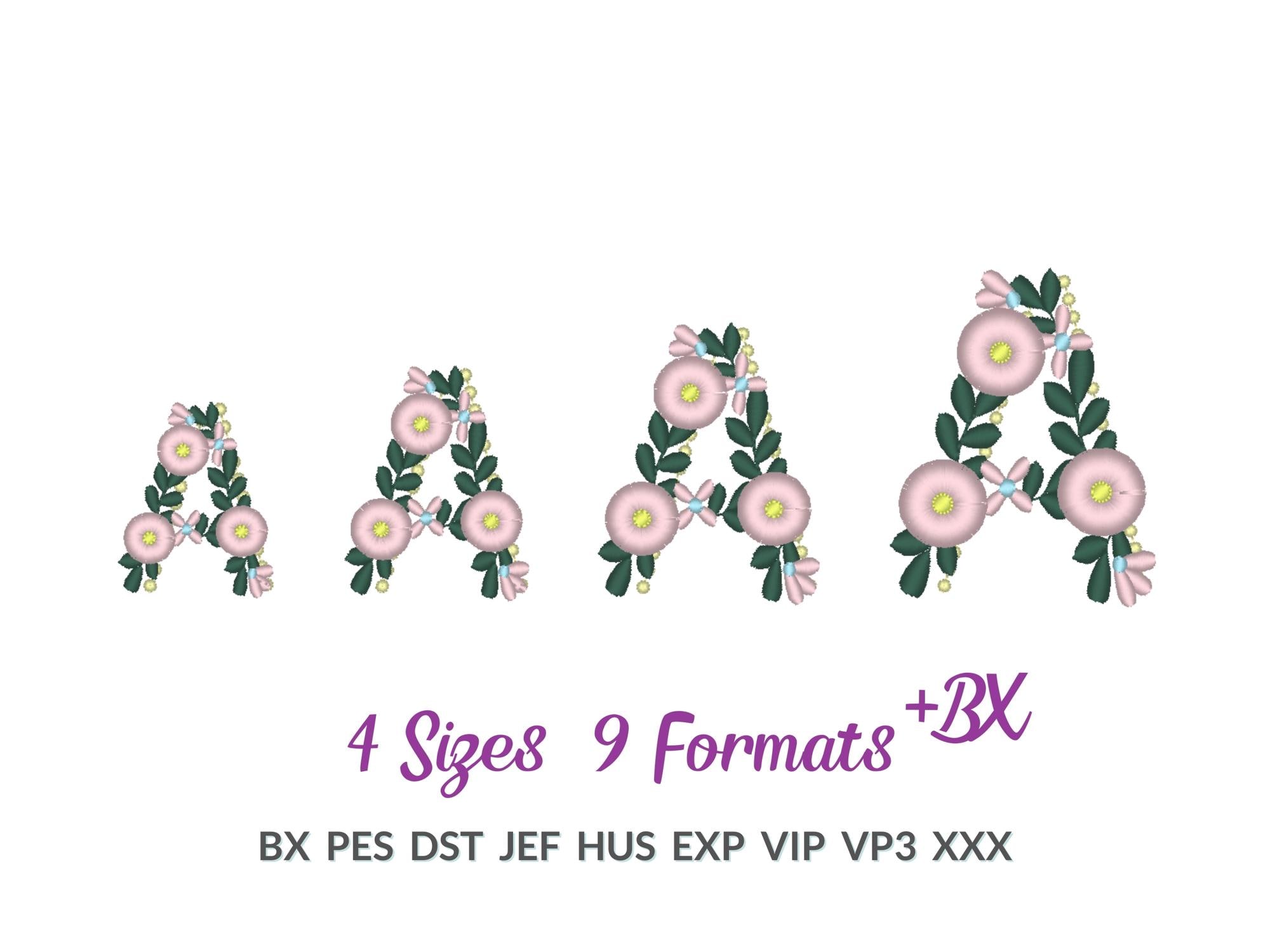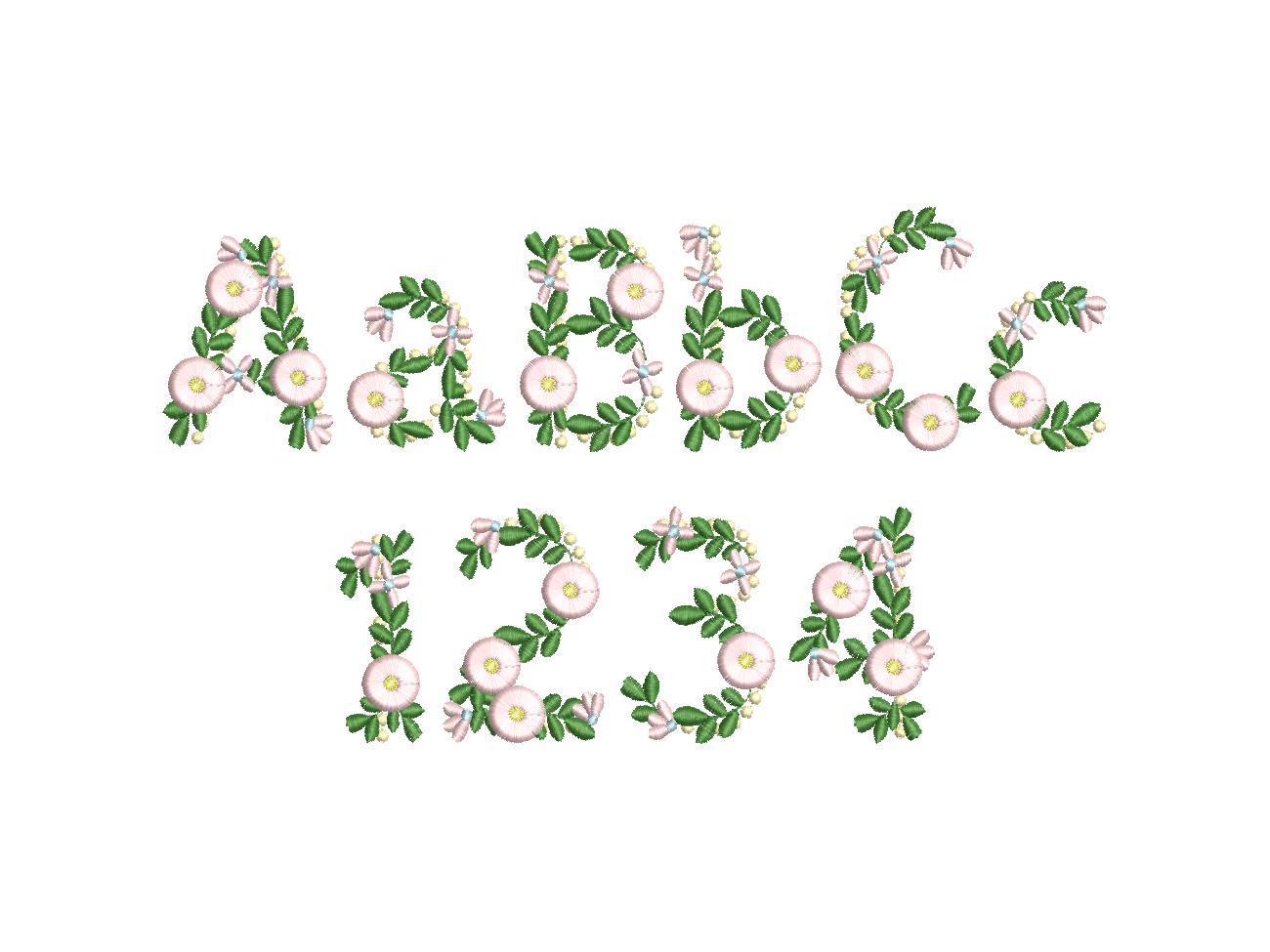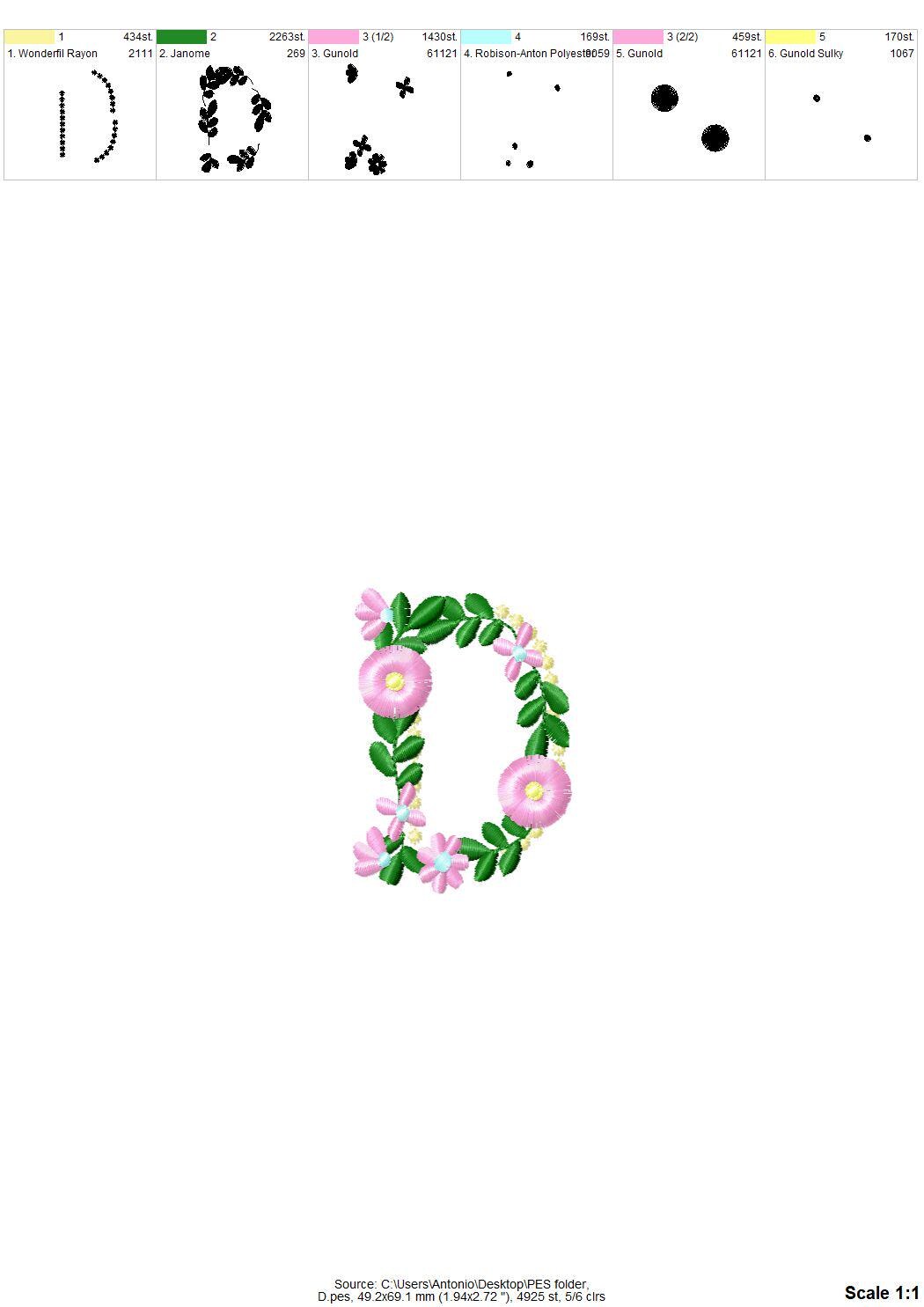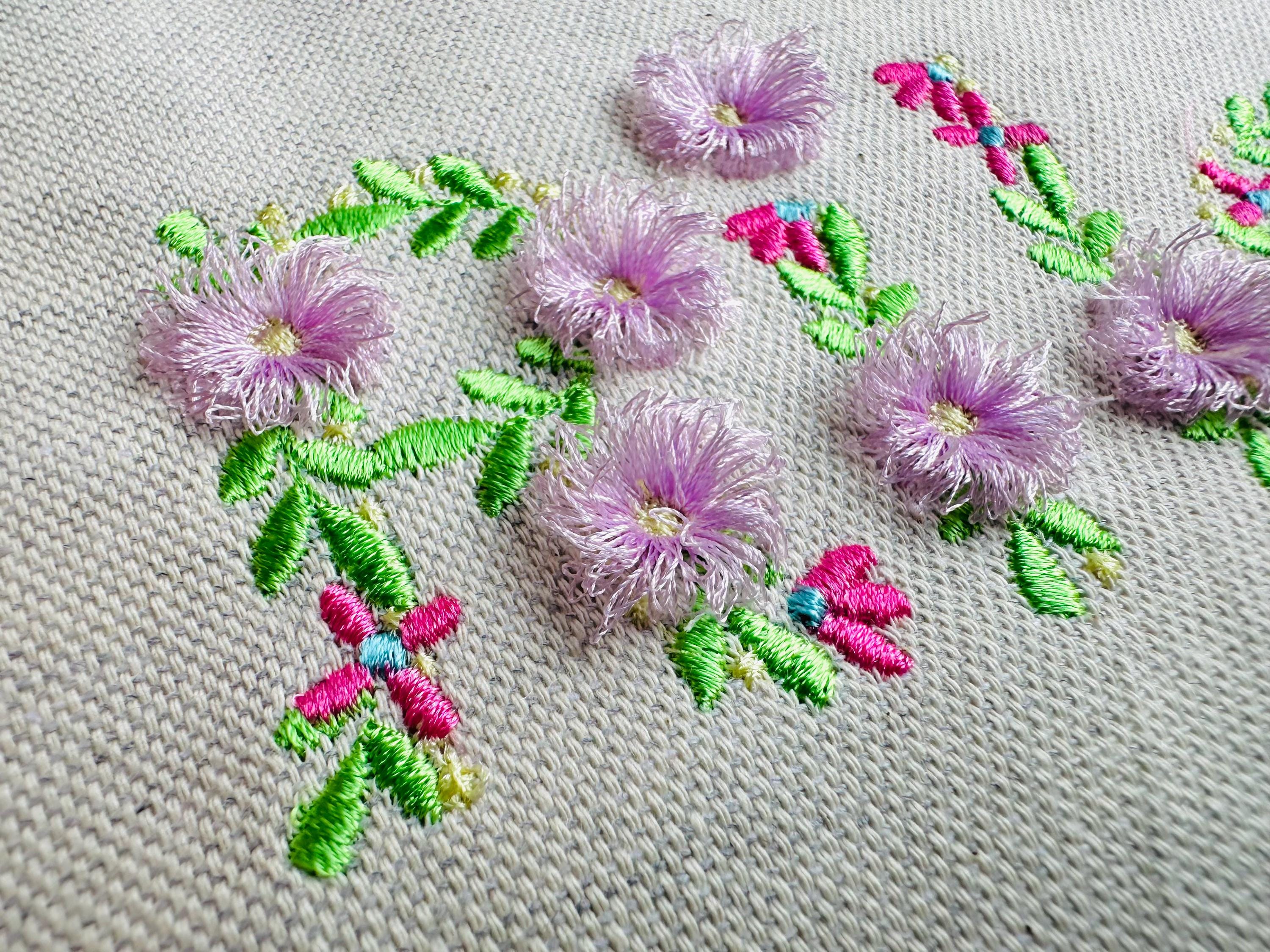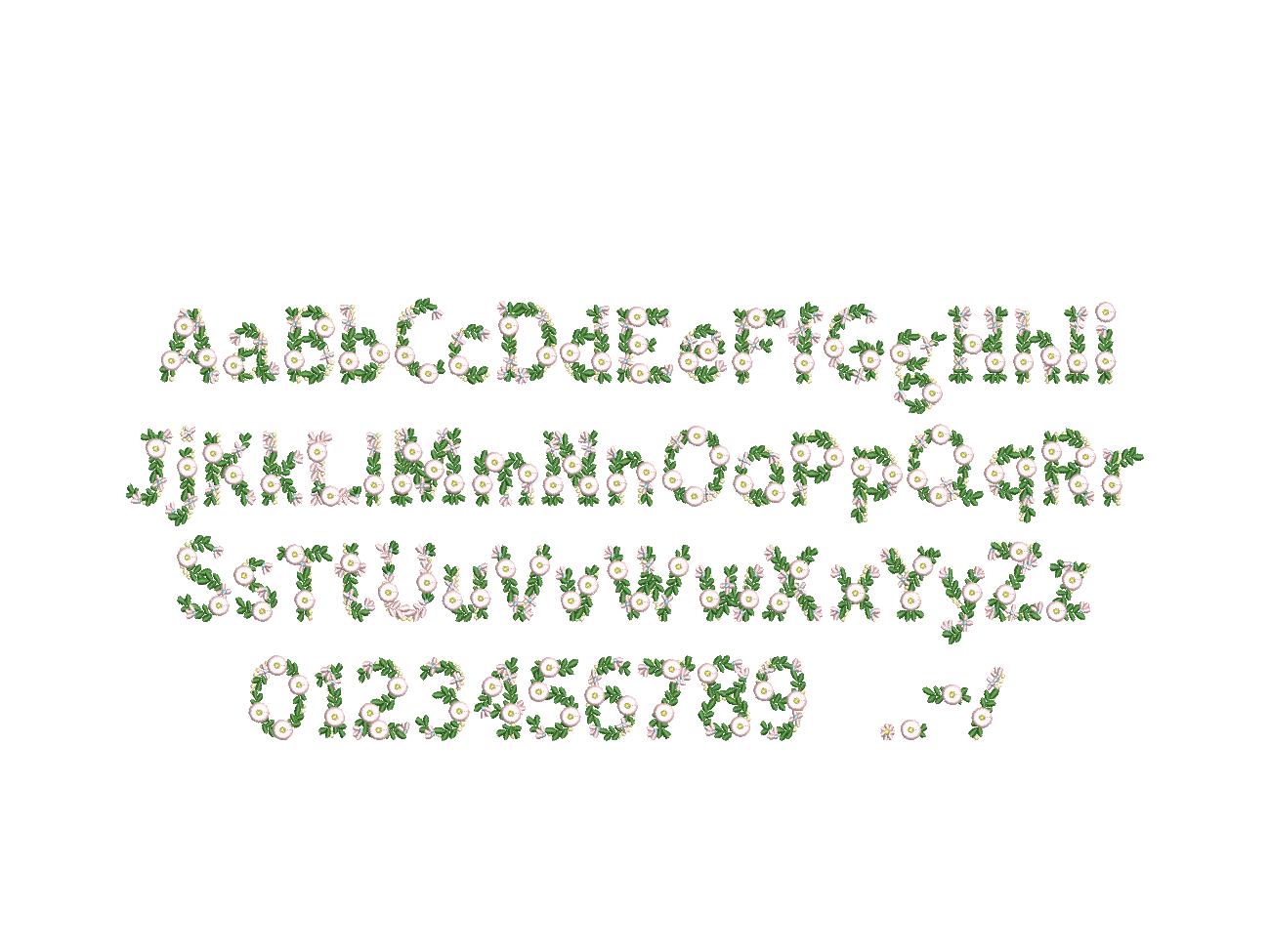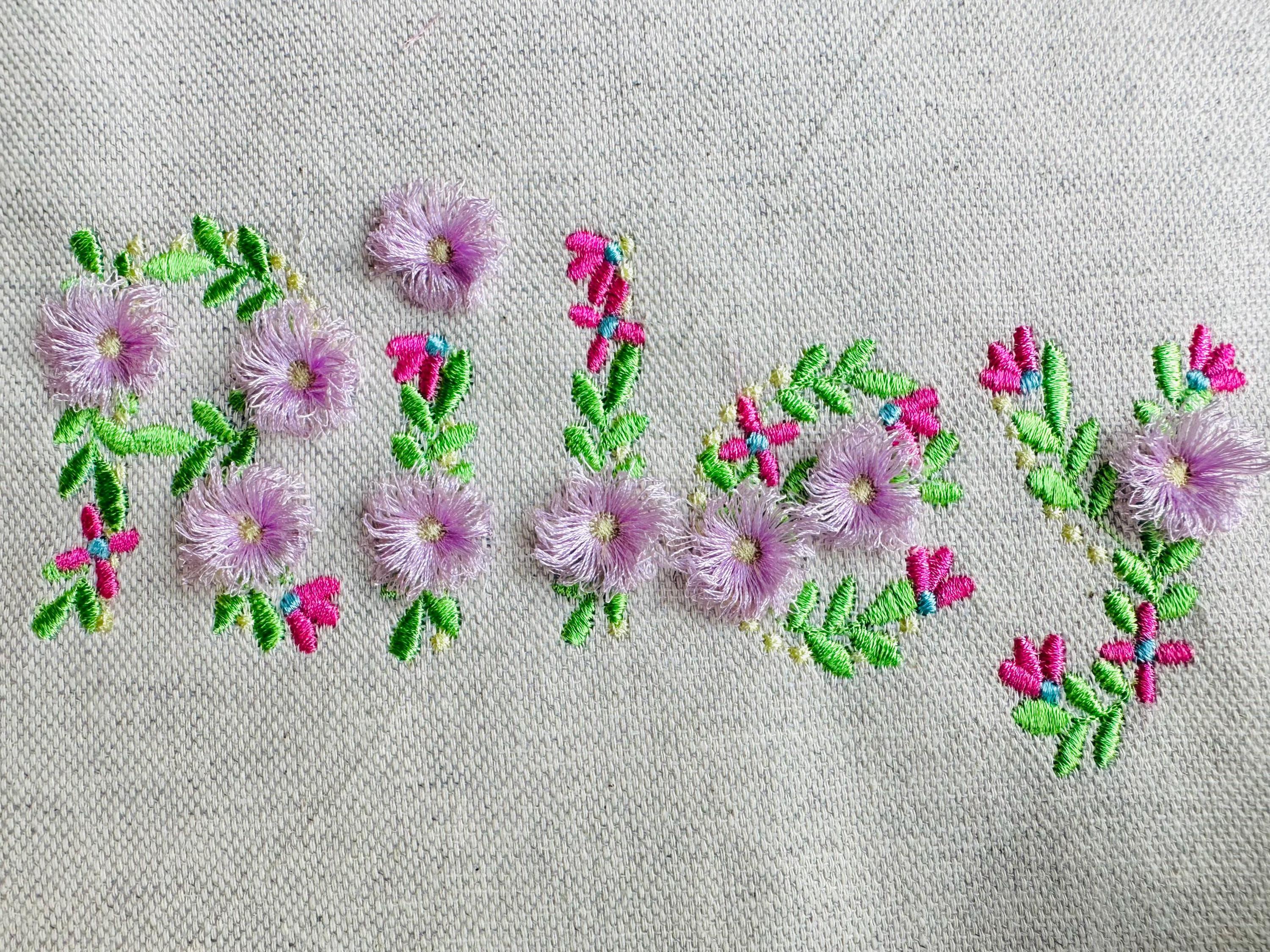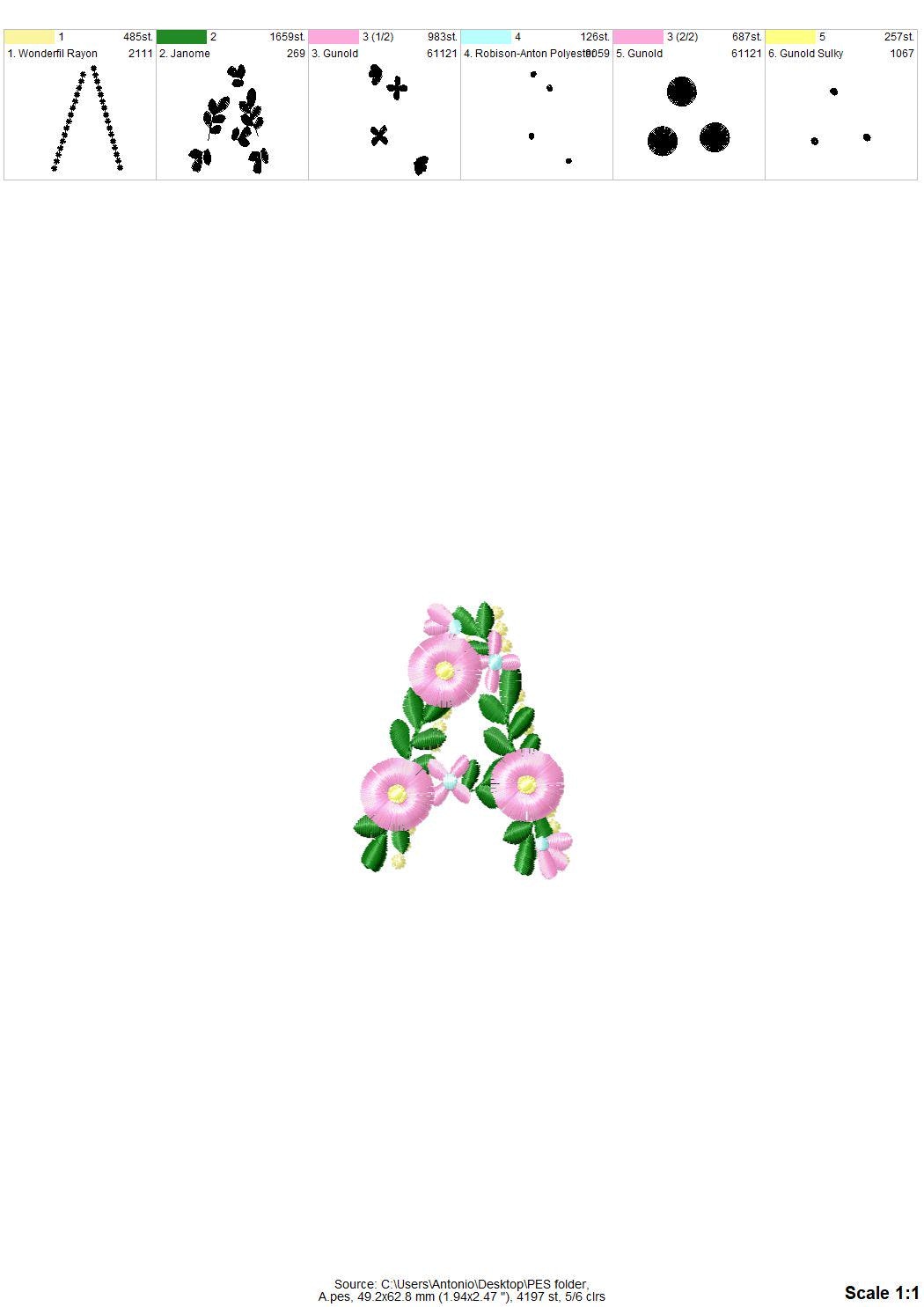
Mini Daisy Fringed Font flowered floral alphabet letters monogram machine embroidery designs sizes 1.7 to 3in add-on single Heart and Flower
Entire alphabet uppercase and lowercase letters, numbers, and punctuation.
You can fluff up the daisy flowers. 100 % safe to wash.
The design has a special seam holding the fringe in place.
It is easy. Embroider the design as usual. Large satin stitches will be loose. Once you complete stitching the design, turn over your hoop to see a reverse side, and cut the bobbin thread, along the large satin stitches. Turn the hoop back over and fluff up the "fringe" around.